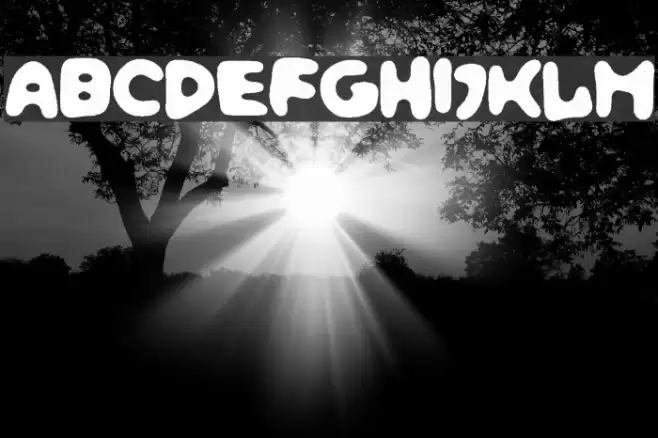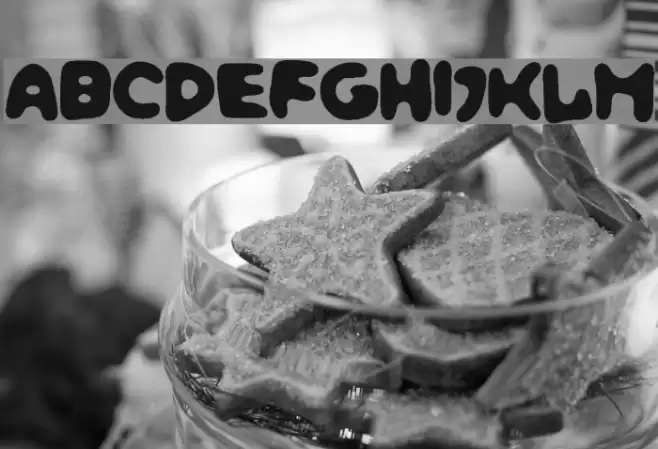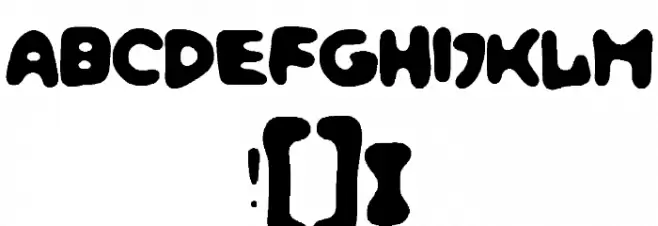
BunnyBaby Font
BunnyBaby Description
This playful and bold font features a bubbly, rounded design that gives it a whimsical and fun appearance. The letters are thick and have a unique, almost cartoonish quality, with some characters incorporating playful elements like drips or blobs. The font maintains a consistent weight throughout, with no significant variation in stroke thickness, contributing to its cohesive look. The characters are closely spaced, enhancing the compact and dense feel of the text. This font's distinctive style makes it stand out, ideal for projects that require a touch of creativity and humor.
A playful, bold font with a bubbly, cartoonish design from Uncategorized fonts.
- Proposed Projects: Ideal for children's book covers, playful branding, party invitations, and creative posters.
- Character Spacing: Tight
- Overall Style: Playful, Whimsical